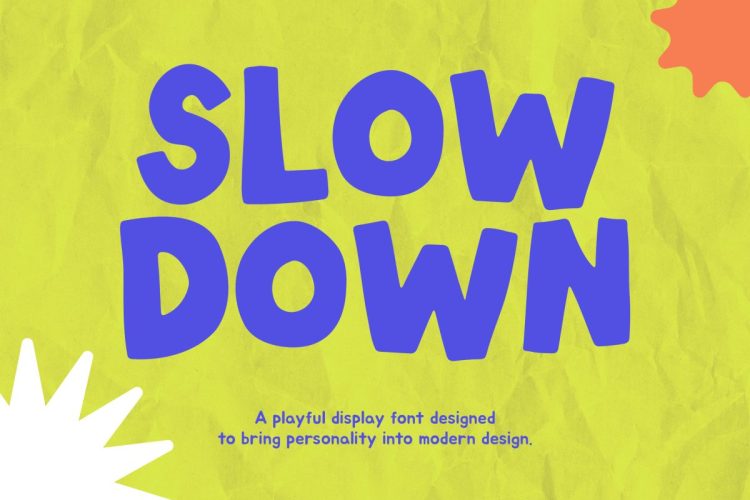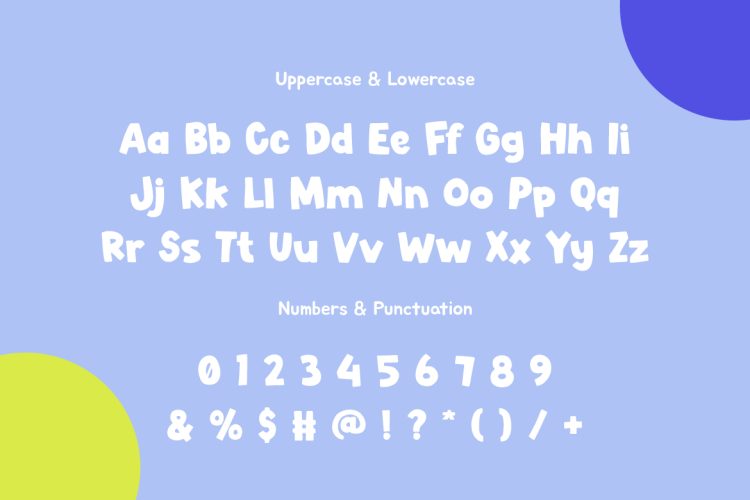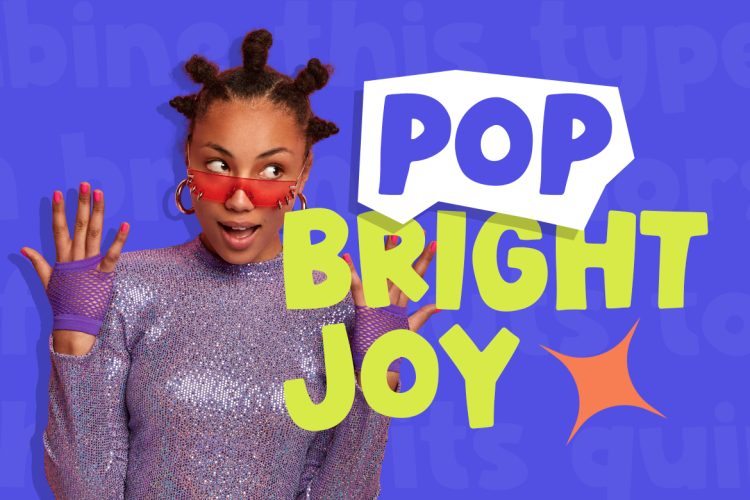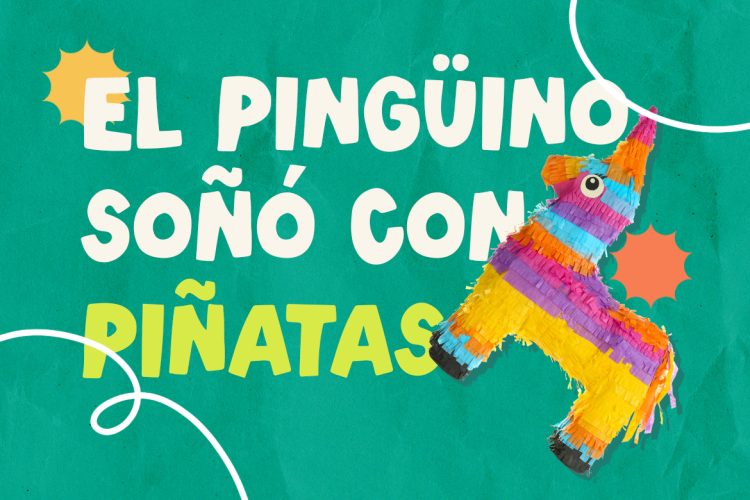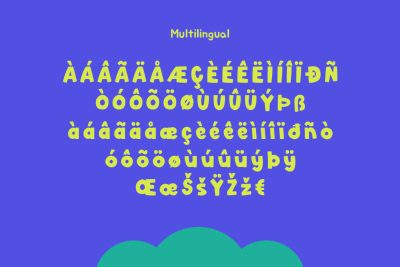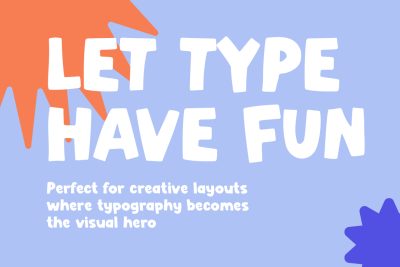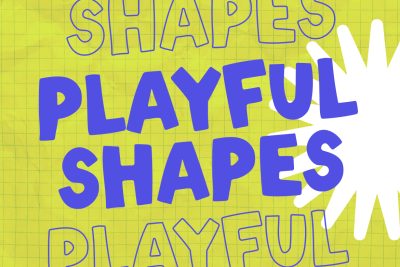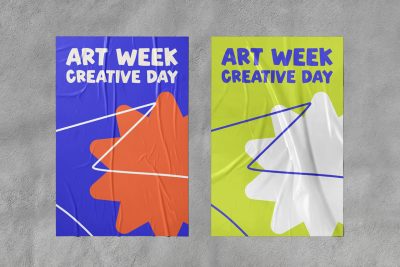
Slowdown โ Playful Kids Display Font
Kids Font Slowdown is a cheerful and playful display font designed to bring fun, color, and energy to your creative projects. Its bold rounded shapes, lively proportions, and friendly personality make every word feel joyful and expressive. The letters look soft, bouncy, and full of character, which instantly creates a warm and approachable visual style. Because of its playful structure, Kids Font Slowdown easily captures attention while keeping text clear and readable. In addition, the font supports 67 languages, making it perfect for global creative projects. Whether used for titles, posters, or playful branding, this font adds a bright and happy vibe that makes designs feel alive.
Slowdown features chunky letterforms with smooth curves and fun proportions. As a result, it creates a bold and energetic look that works perfectly in colorful layouts. The font pairs beautifully with playful shapes, bright backgrounds, and creative illustrations. Moreover, it performs well for headlines, kids posters, event flyers, packaging, and social media graphics. Its friendly style helps messages feel welcoming and easy to read. Because of this, the font works great in both digital and print designs.
Kids Font Slowdown is ideal for childrenโs brands, toy packaging, school materials, and educational content. It also suits kids party invitations, posters, cartoons, comic graphics, and playful branding. In addition, designers, teachers, illustrators, and creative content creators will love using this font to create bright and joyful visuals.
Slowdown is the perfect choice if you want typography that feels fun, energetic, and unforgettable. Make your designs pop with personality and bring playful creativity to every project. Add Kids Font Slowdown to your collection today and let your designs spread joy and color instantly.